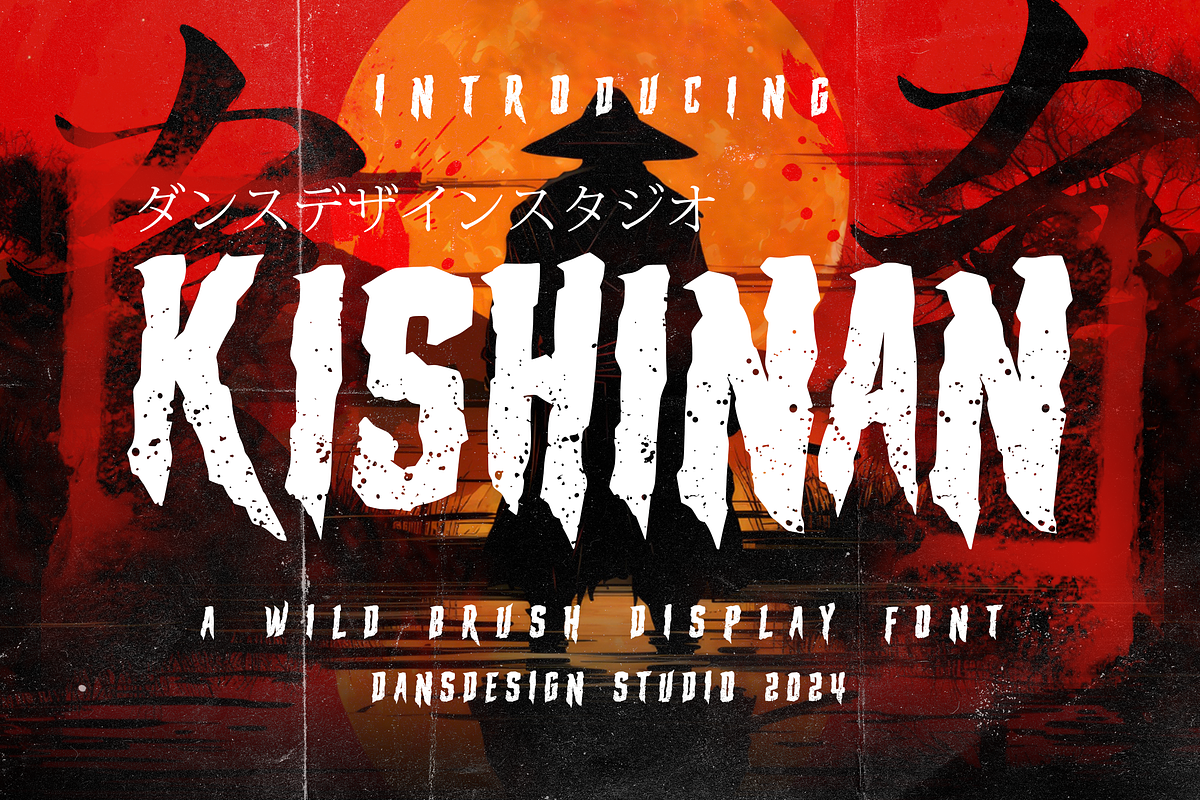
KISHINAN Modern Graffiti Brush Font Free Download is a bold and dynamic typeface inspired by urban street art and modern graffiti culture. Featuring expressive brush strokes and an edgy, raw design, this font is perfect for creating eye-catching posters, branding, logos, album covers, and any design that needs a touch of rebellious energy.
Its unique, handcrafted appearance gives it a bold, artistic flair, making it ideal for creative projects that aim to stand out. Whether you're working on a music-related design, an urban brand, or vibrant promotional materials, KISHINAN brings a strong and artistic presence to your typography.